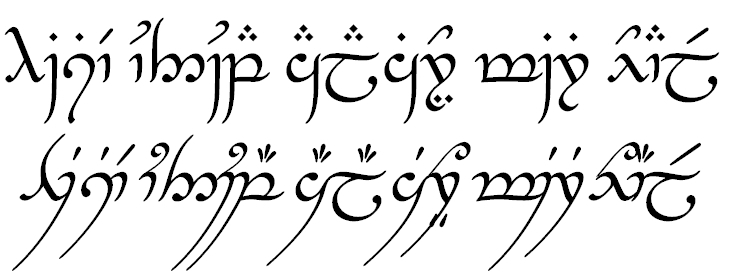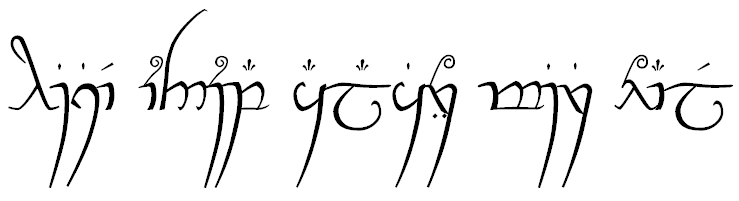
Tengwar Fonts The fonts in the table below represent a selection of those available on the Web. It is a personal selection based on my own aesthetic opinions. They are shown in alphabetical order, and all work according to Dan Smith's keyboard mapping, which has become the standard for new creations among Elvish linguists. The reasons for using this mapping are explained by Smith. Links are given to the pages where the fonts are described and may be downloaded. Most are more or less under development. All font names begin with Tengwar, followed by the word in the table. The authors are mentioned below the respective font names. Tengwar Annatar has a separate italic form. Tengwar Teleri is based on swans' shapes. |
Fontes de Tengwar As fontes da tabela abaixo representam uma seleção das que estão disponíveis na Web. É uma seleção pessoal baseada em minhas próprias opiniões estéticas. Estão mostradas em ordem alfabética, e todas funcionam de acordo com o mapeamento de teclado de Dan Smith, que se tornou o padrão para novas criações entre os lingüistas élficos. As razões para usar este mapeamento são explicadas por Smith. São dados links para as páginas onde as fontes estão descritas e podem ser baixadas. A maioria está mais ou menos em desenvolvimento. Todos os nomes de fontes começam por Tengwar, seguido da palavra da tabela. Os autores estão mencionados abaixo dos nomes das respectivas fontes. Tengwar Annatar tem uma forma itálica separada. Tengwar Teleri baseia-se em formas de cisnes. |